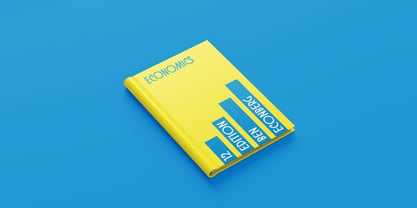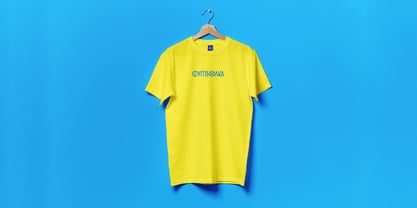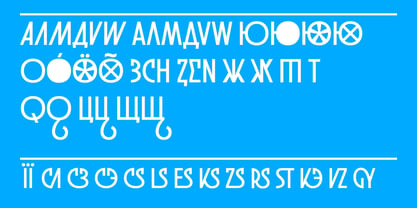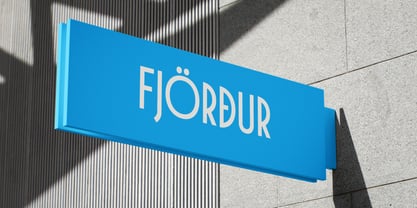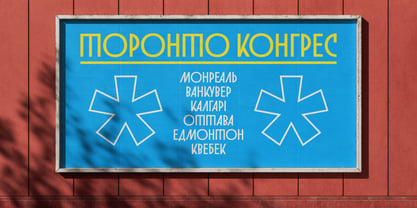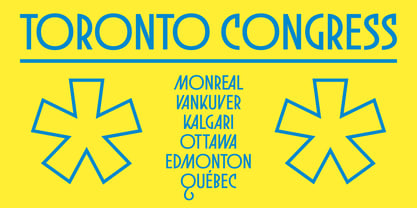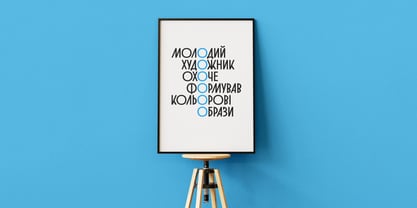
Toronto Congress
The Toronto Congress Font Family was designed by Arsen Mosiichuk and published by Arsen Mosiichuk Type Foundry. Toronto Congress contains 1 styles. More about this family
Toronto Congress is a decorative Art Deco–style font based on the lettering of Ukrainian graphic artist Volodymyr Bednarsky, originally used on the cover of the book “A Sketch of the History of the Ukrainian Canadian Congress in Toronto” (ukr. “Нарис Історії Конґресу Українців Канади в Торонті.”).
The font performs well in display and large sizes in applications such as:
— clothing,
— signage,
— posters,
— book covers.